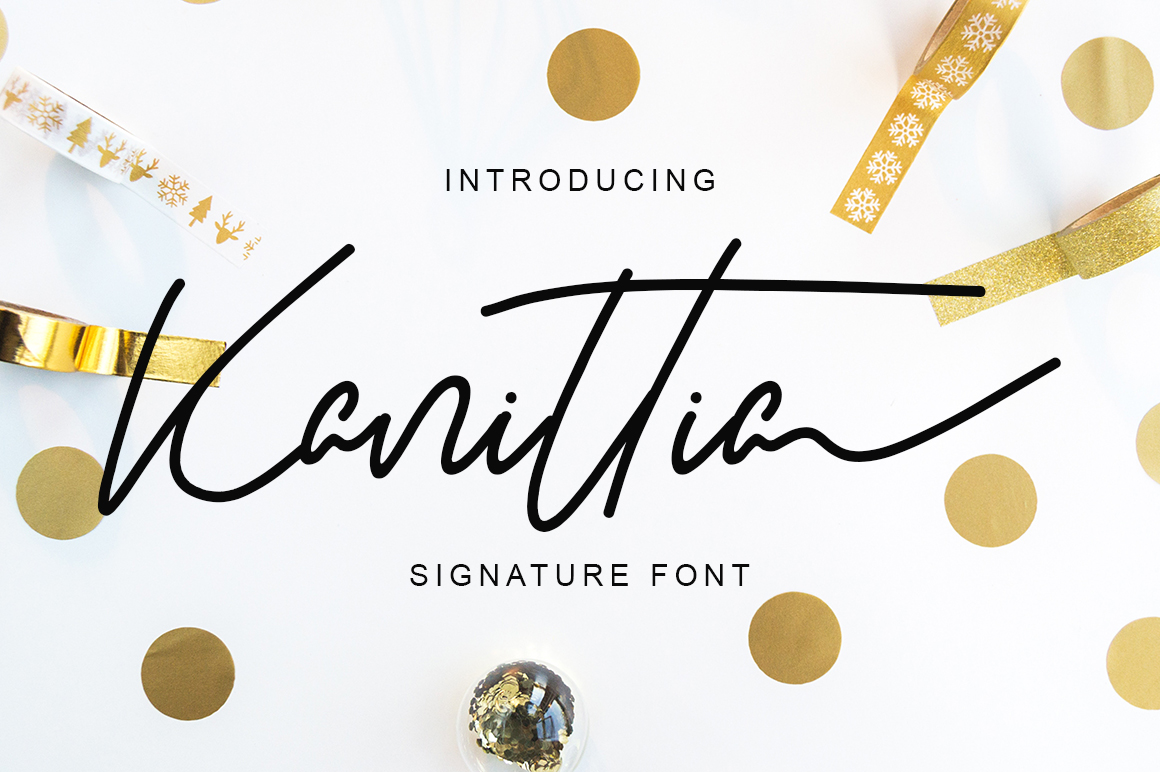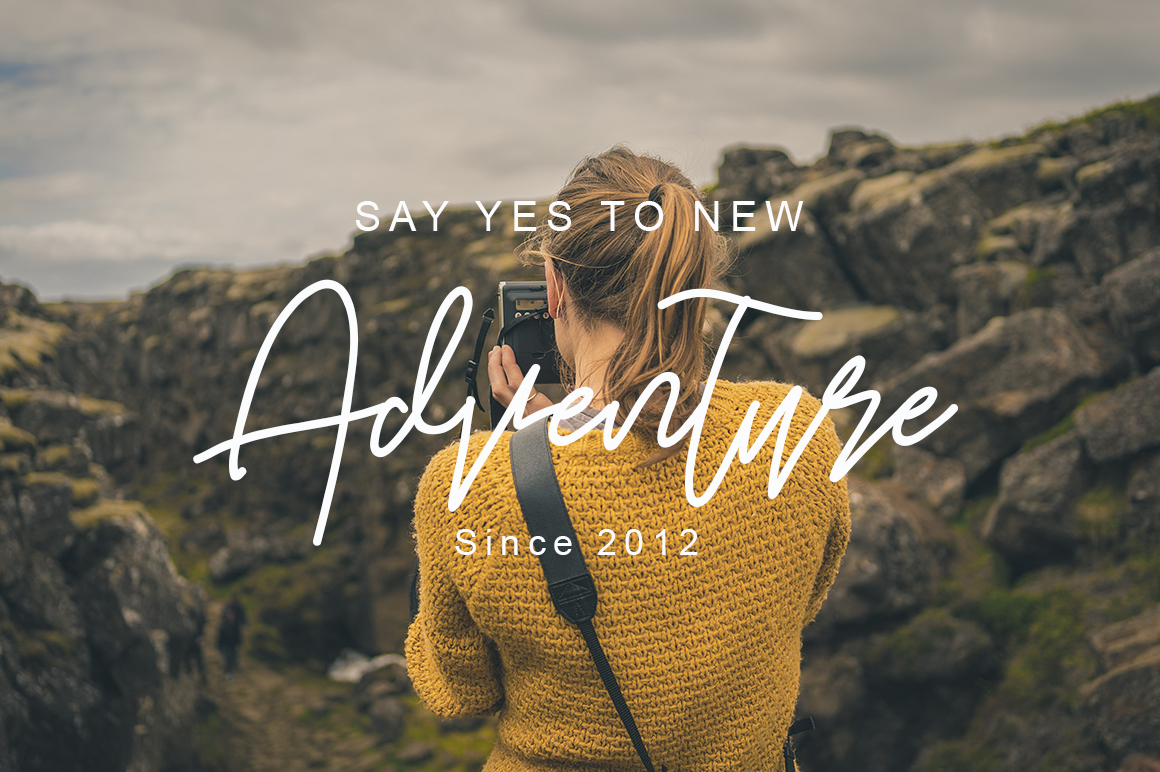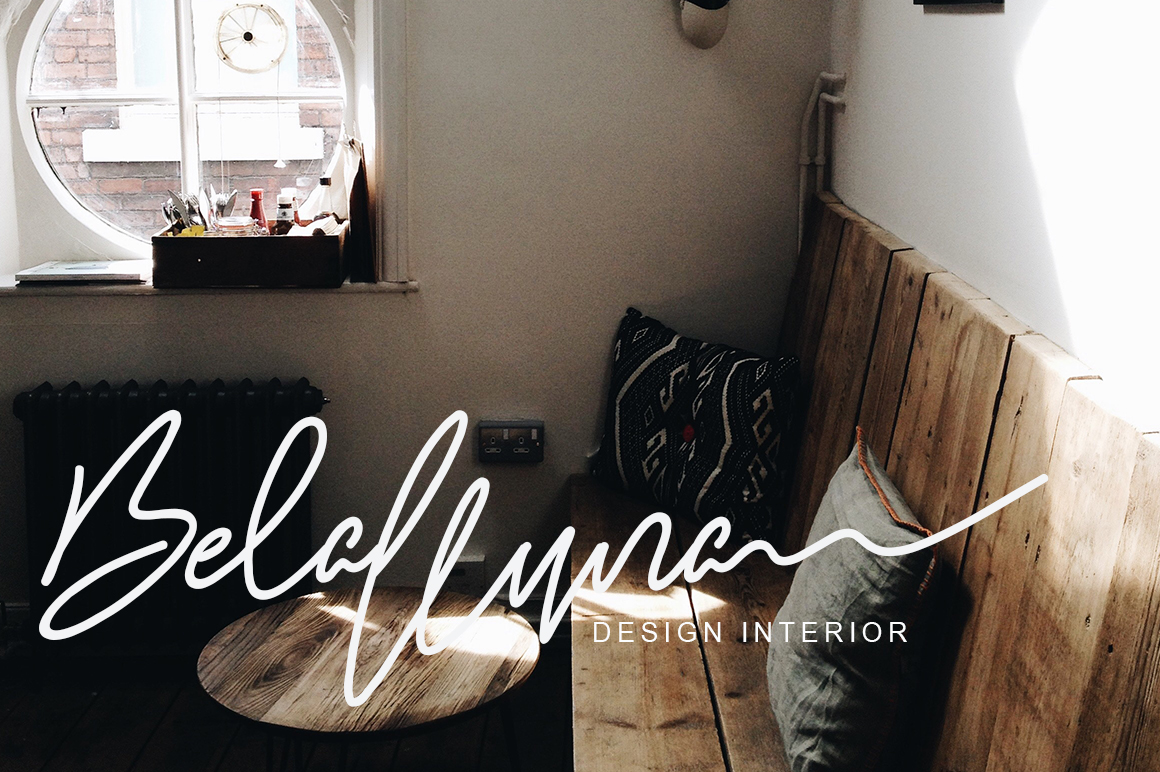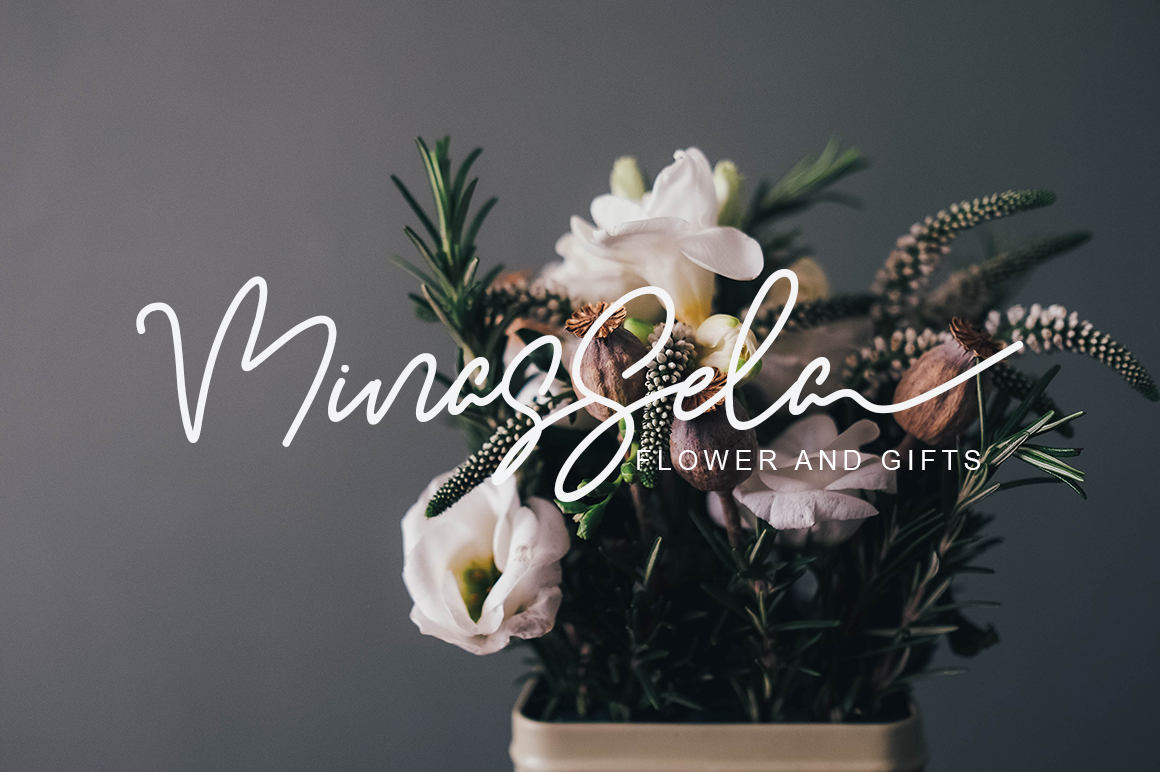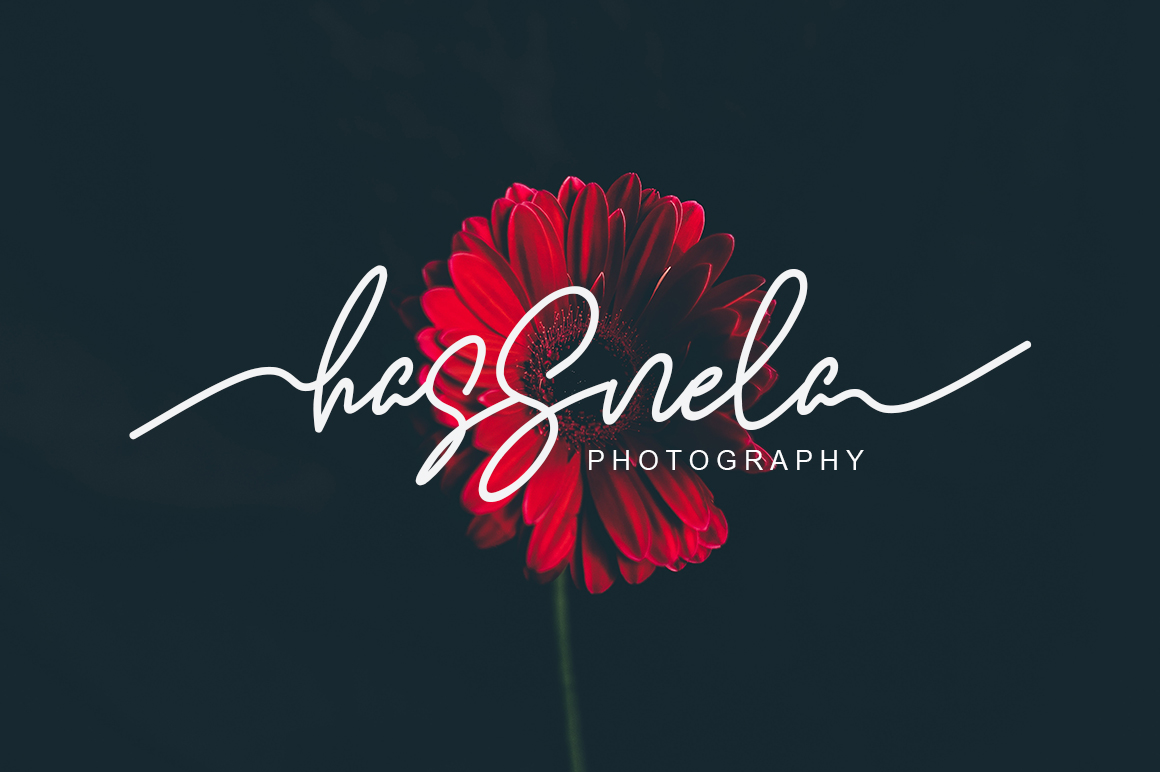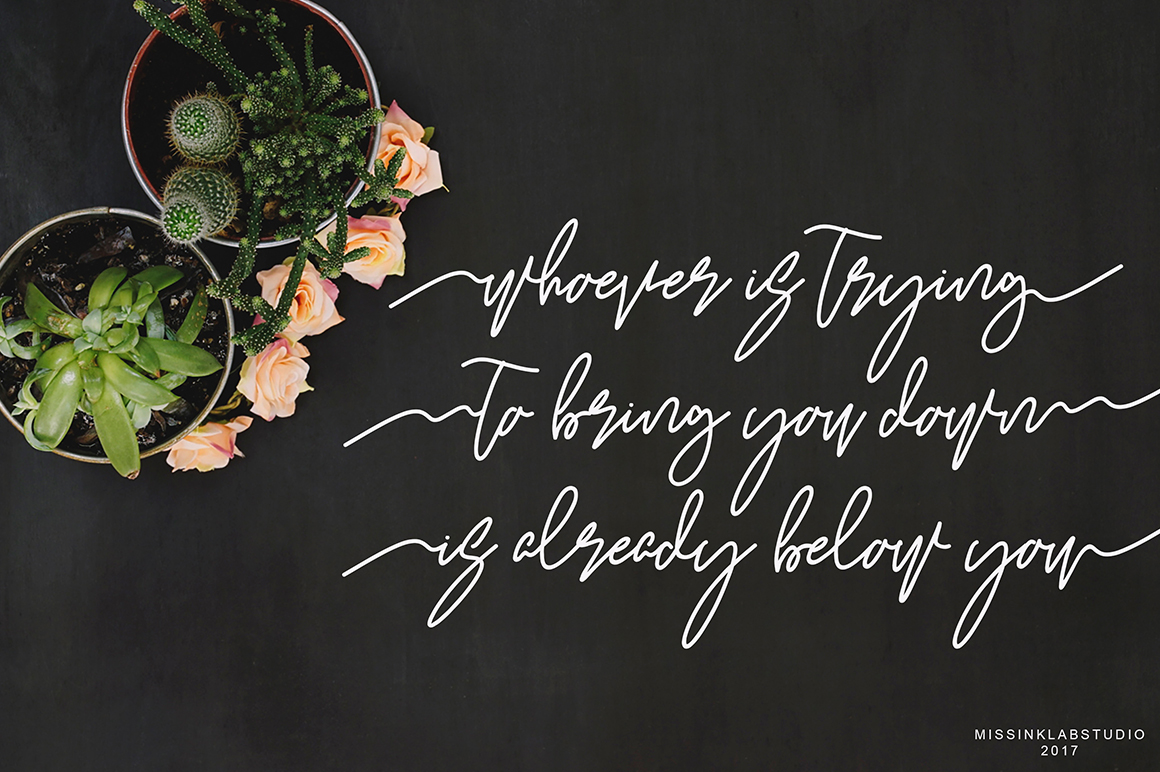
Kanittia Font
About Kanittia Font
Kanitia is a very modern script font, with a signature and casual style. This font is well suited to a number of projects that need a unique, standout font. With an irregular baseline, this font is a great way to add a unique touch.